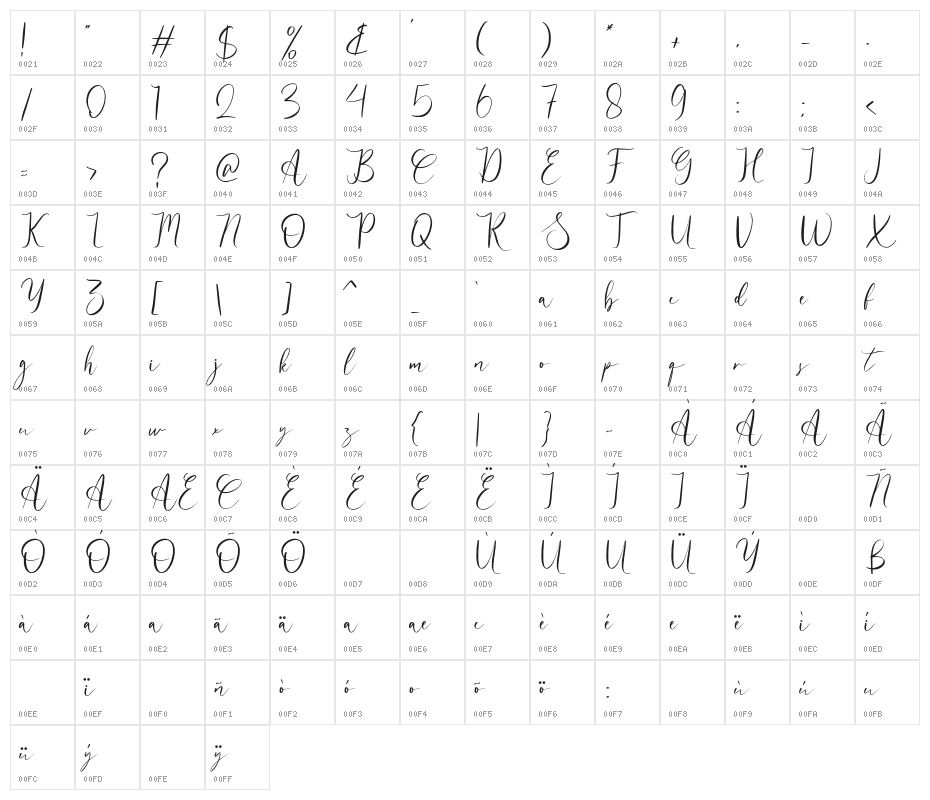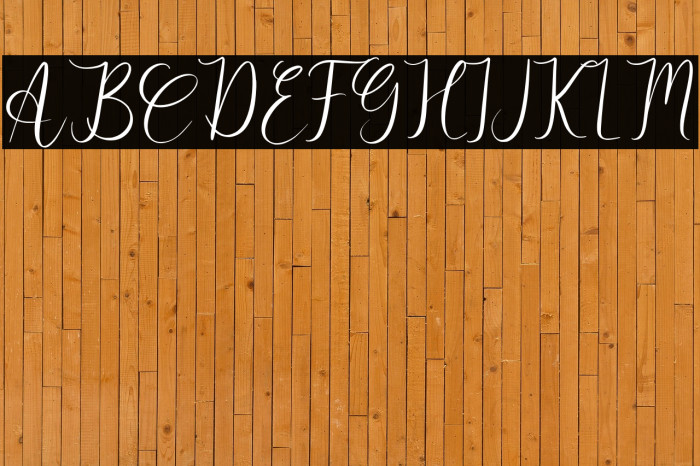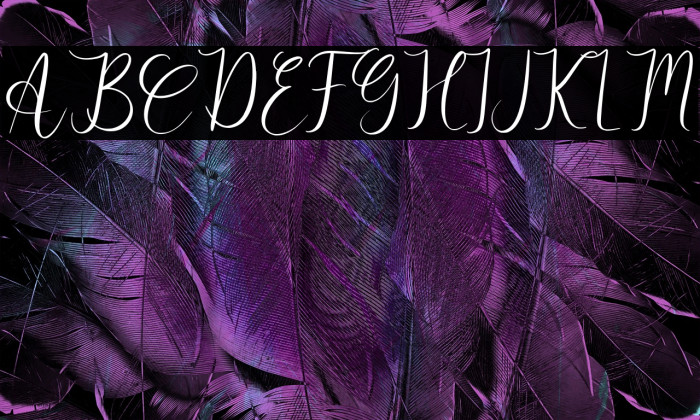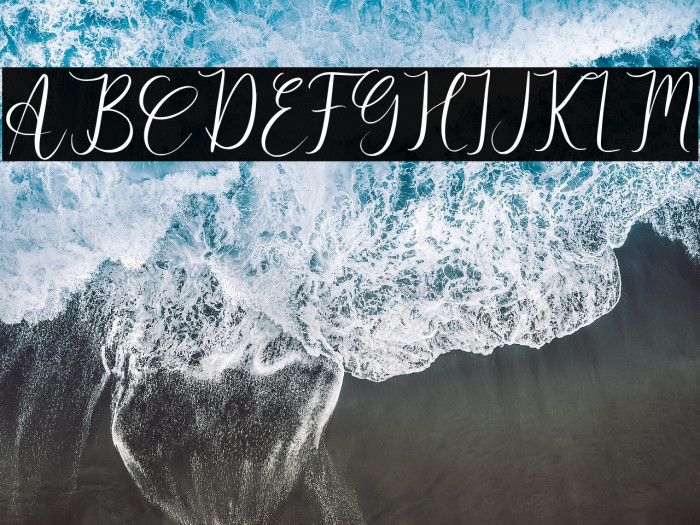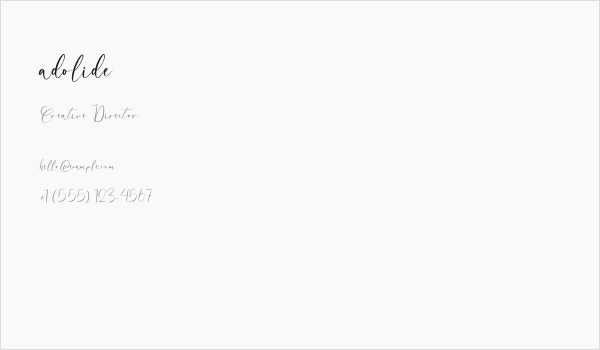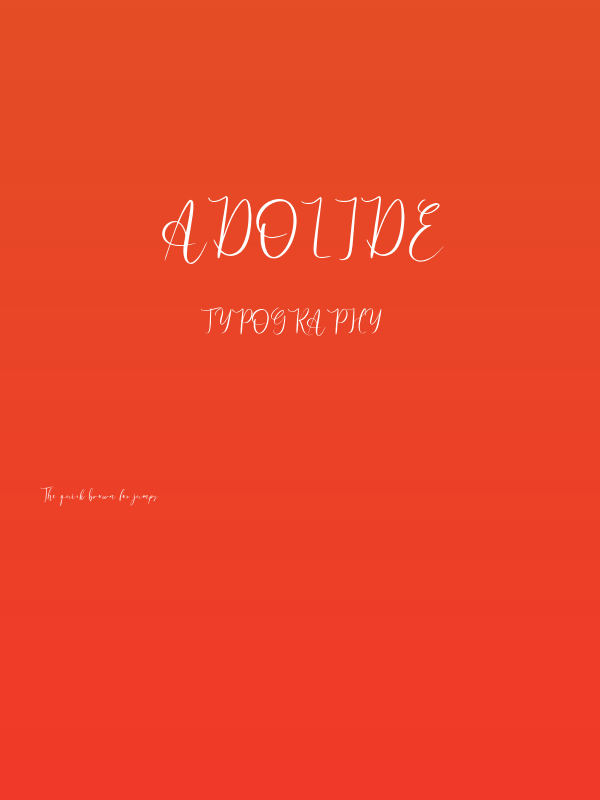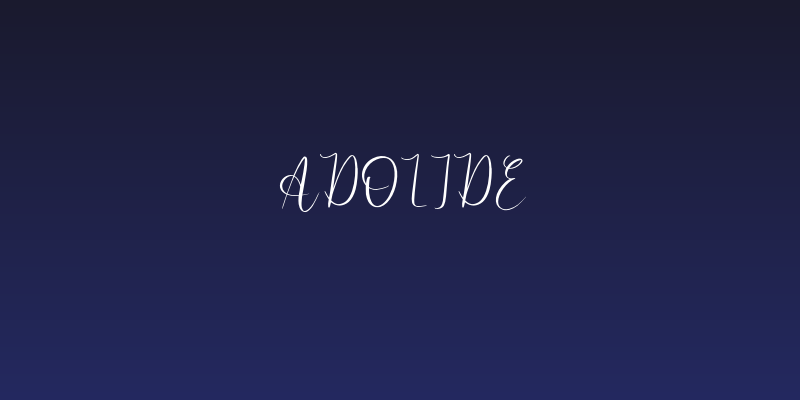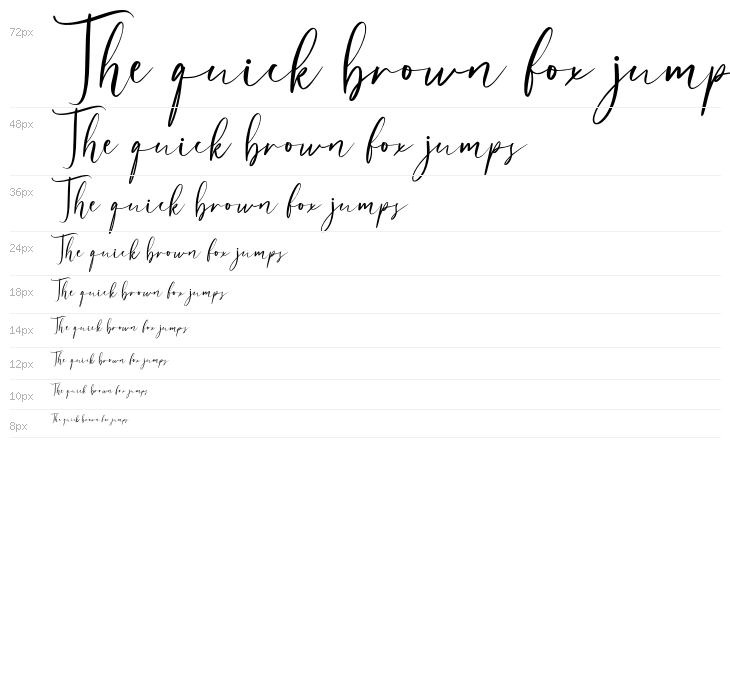
adolide Font
adolide Description
This elegant script font features a flowing, cursive style with graceful, sweeping strokes. The uppercase letters are characterized by their tall, slender forms and intricate loops, while the lowercase letters maintain a consistent fluidity and rhythm. The numerals and special characters are designed with the same attention to detail, ensuring a cohesive look across all elements. The font's delicate lines and sophisticated curves make it ideal for projects that require a touch of refinement and elegance.
| Use Case | Logos, Invitations, Headlines |
| Proposed Projects | Wedding invitations, elegant branding, personal stationery, and upscale packaging. |